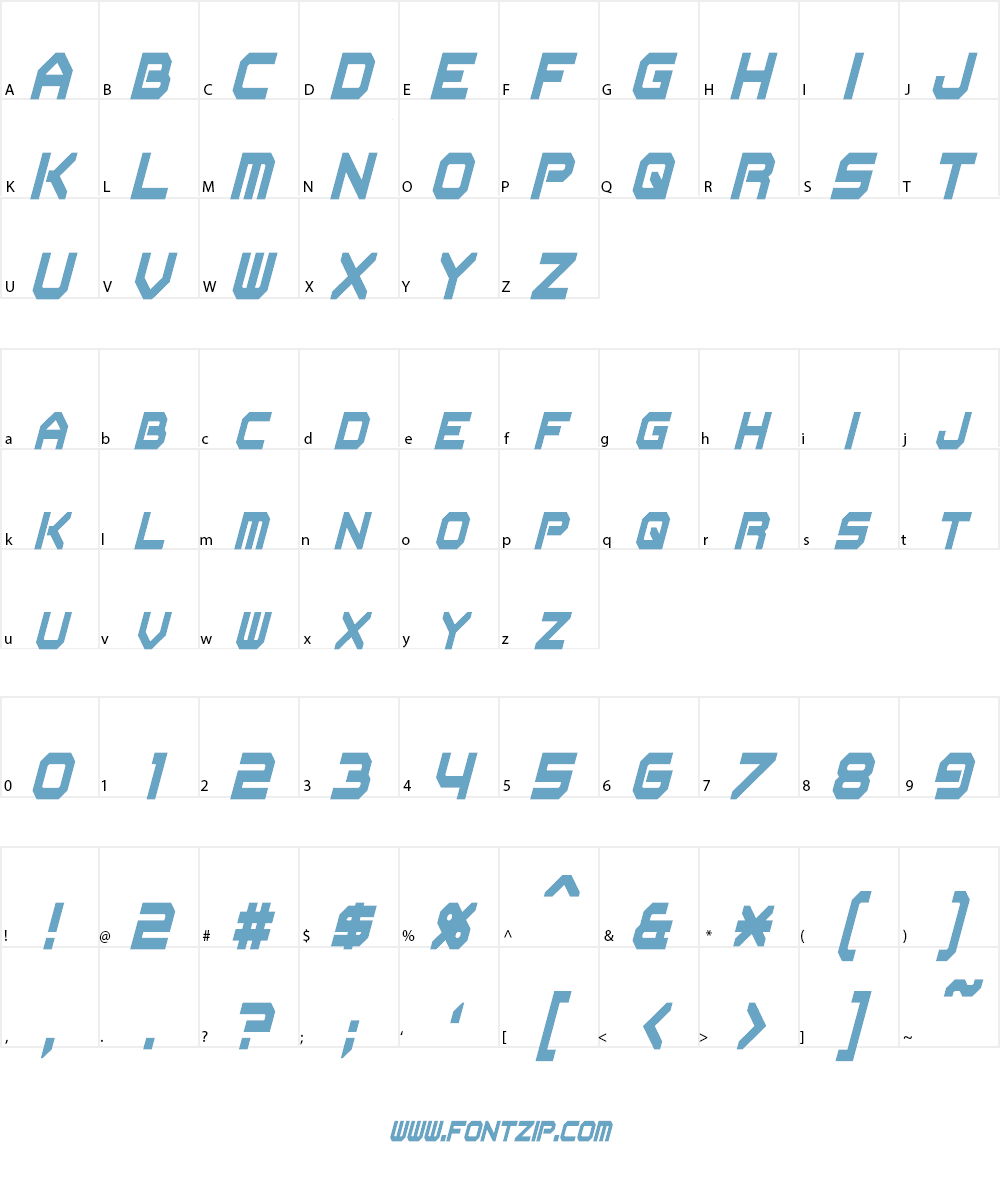
Based on the logo of Hasbro's "Bot Shots" line, this is a bold, squarish font useful for simple 'tech' displays. Includes regular character set, Euro, and accented characters. Includes italic and condensed versions.